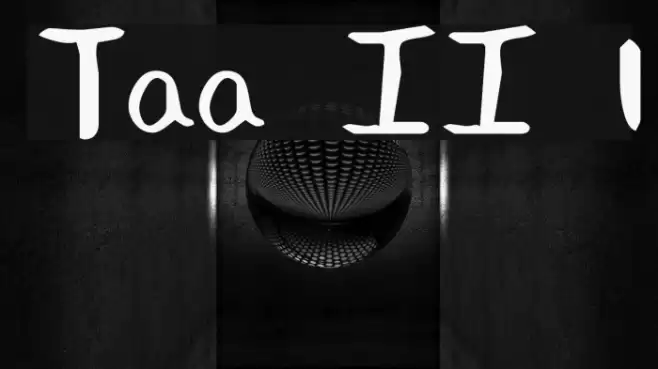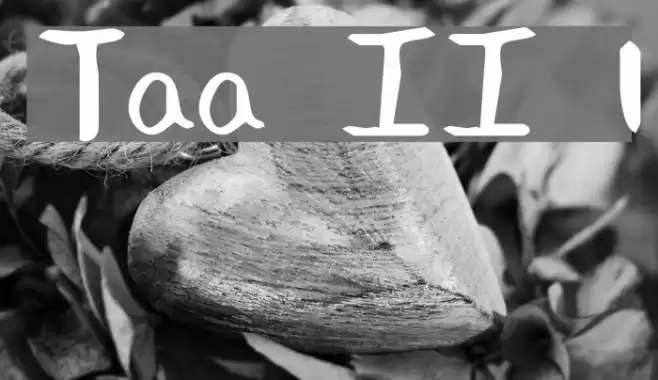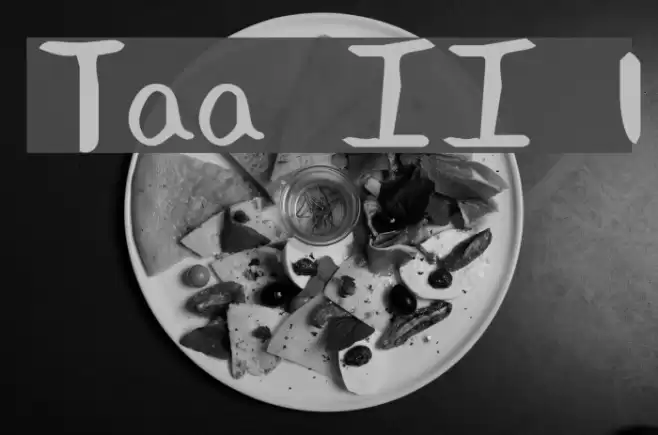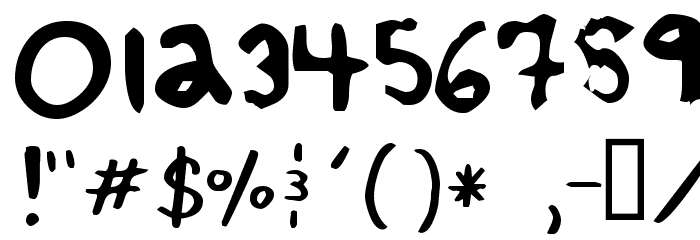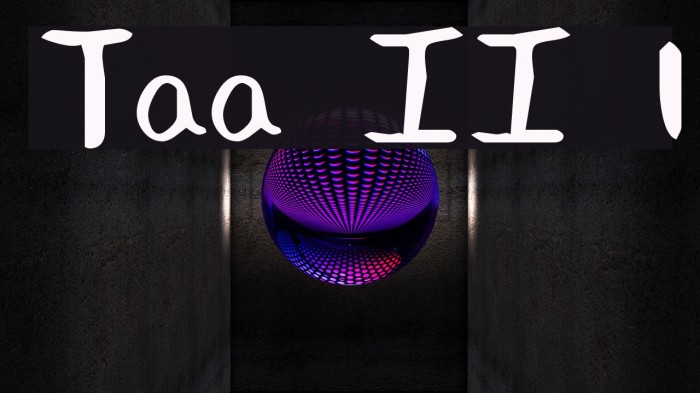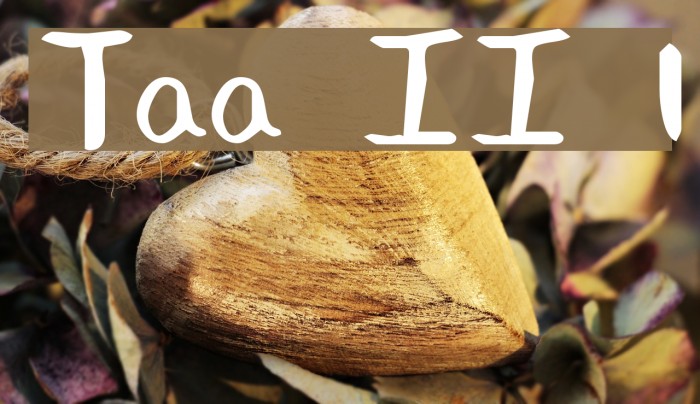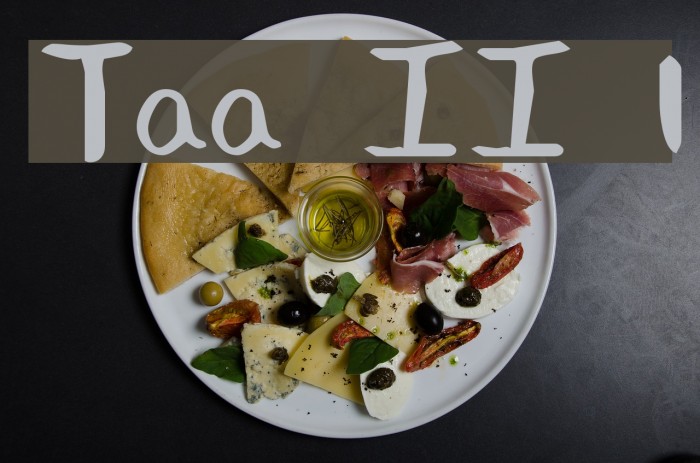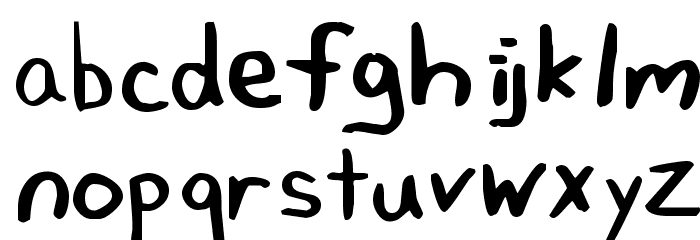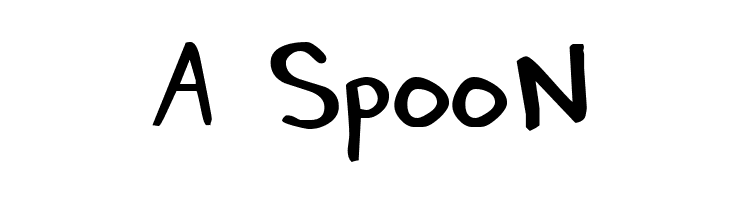
Tawattype II 1 Font
Tawattype II 1 Description
This font exhibits a playful and informal style, characterized by its hand-drawn appearance. The letters have a casual, uneven stroke that gives them a whimsical and approachable feel. The uppercase and lowercase letters maintain a consistent style, with rounded edges and varying stroke widths that add to its charm. The numbers and special characters follow the same playful design, making the font suitable for creative and fun projects. Its irregularity and organic flow make it stand out, providing a sense of individuality and creativity.
A playful, hand-drawn font with a whimsical and informal style from Handwritten fonts.
- Proposed Projects: Ideal for children's books, greeting cards, playful branding, and casual invitations.
- Overall Style: Playful
- Use Case: Headlines, Logos, Informal Text